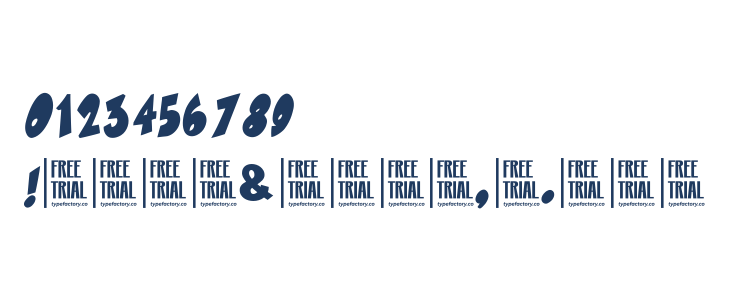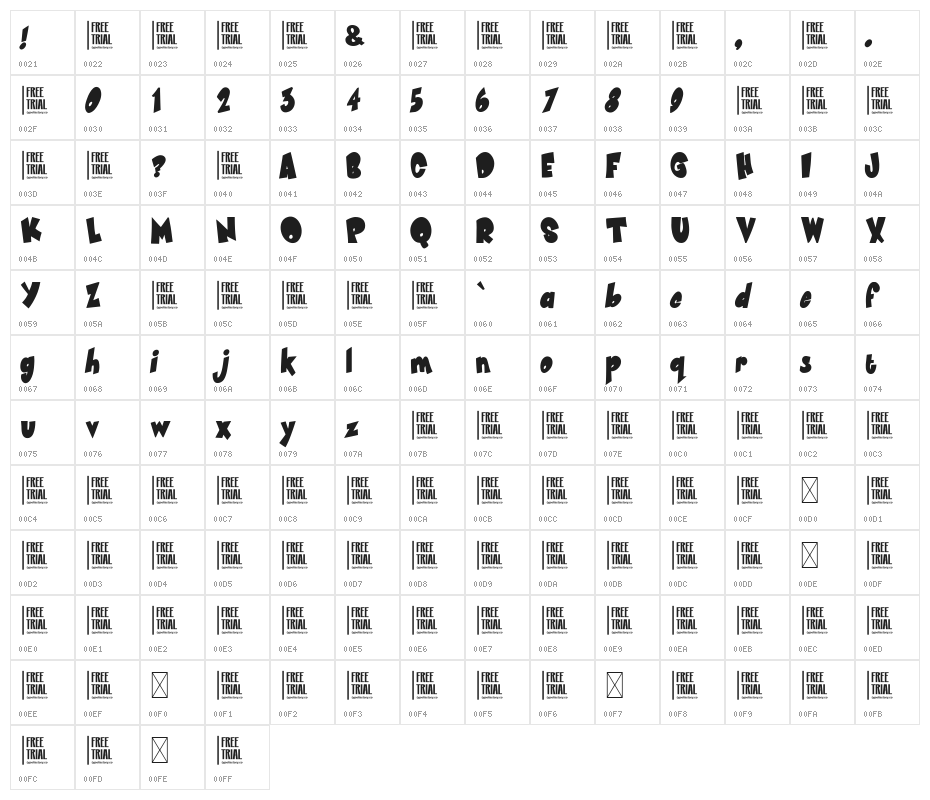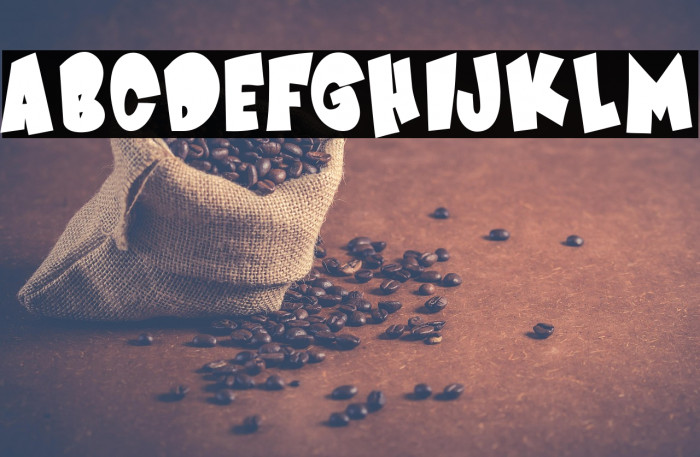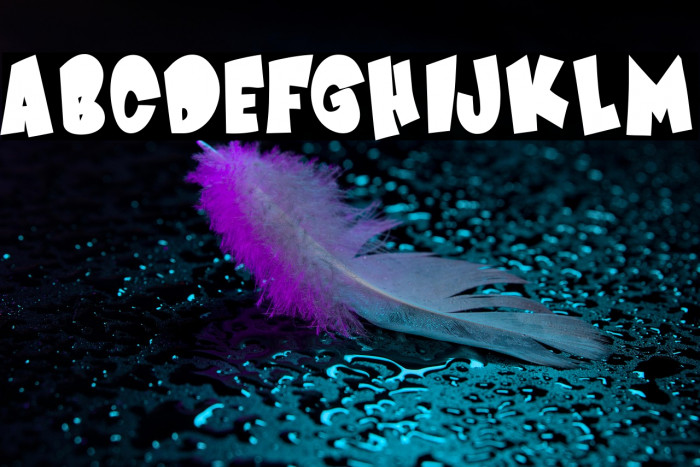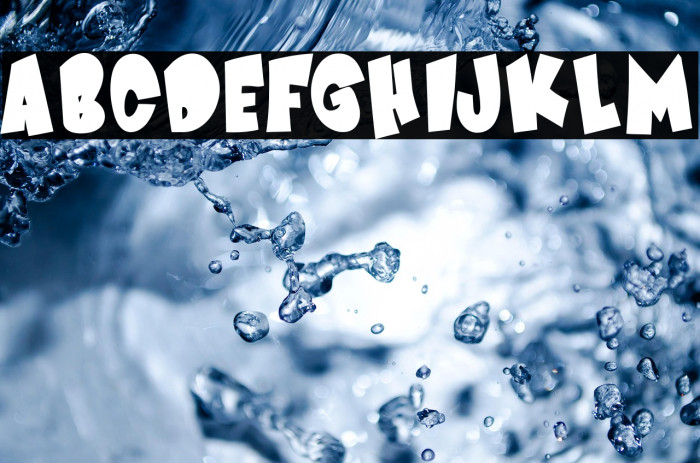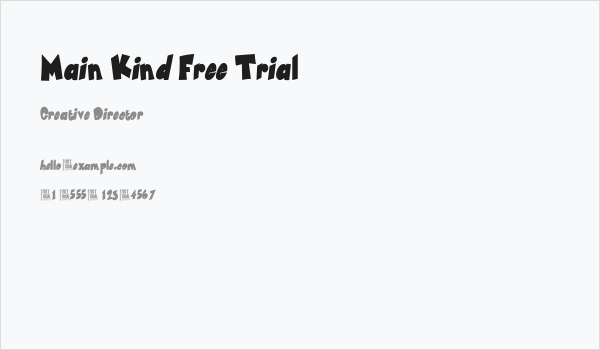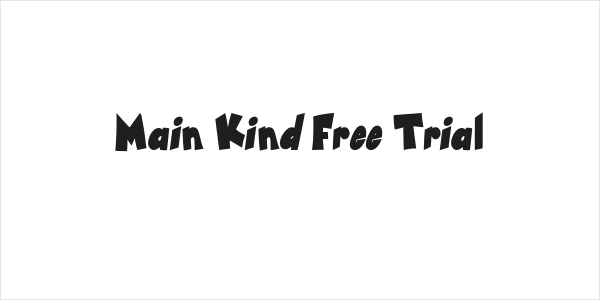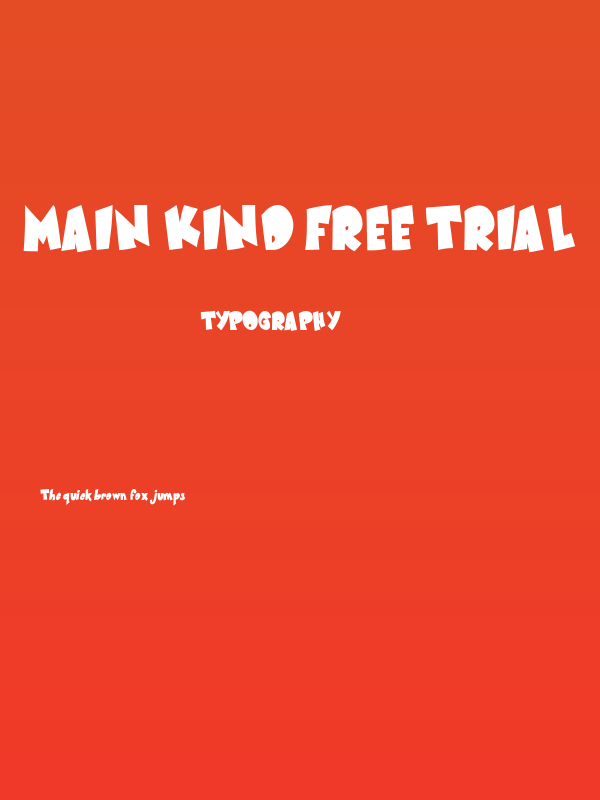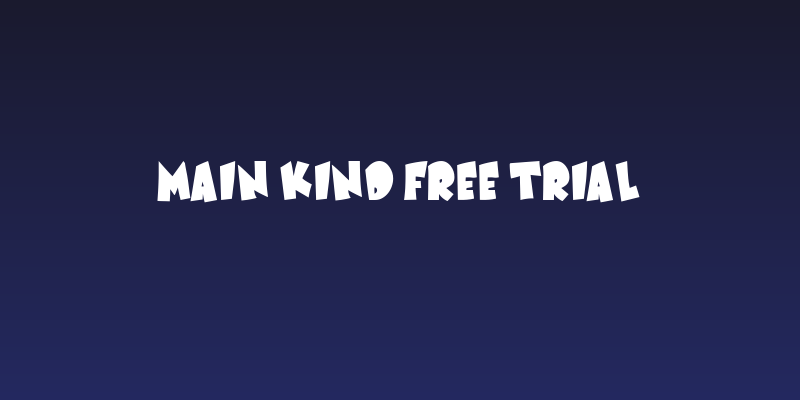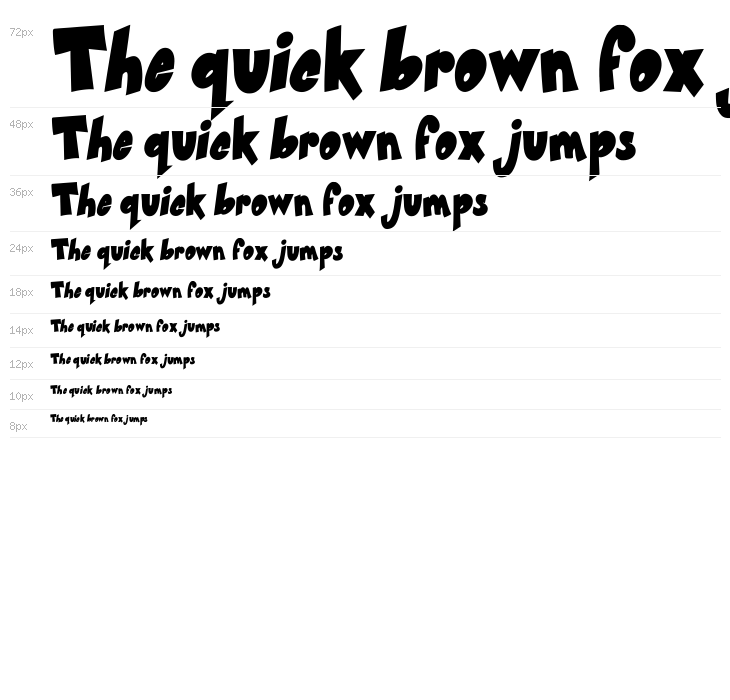
Main Kind Free Trial Font
Main Kind Free Trial Description
This font features a bold, playful style with exaggerated, uneven strokes that create a lively and dynamic appearance. The characters have a cartoonish quality, with varying widths and a slightly irregular baseline, adding to its whimsical charm. The uppercase letters are particularly bold and eye-catching, while the lowercase letters maintain a consistent, rounded form. The numbers and special characters follow the same playful design, making the font suitable for creative and informal applications. Its unique style is ideal for projects that require a fun and engaging visual impact.
| Overall Style | Playful, Cartoonish |
| Proposed Projects | Ideal for children's books, comic strips, playful branding, and event posters. |